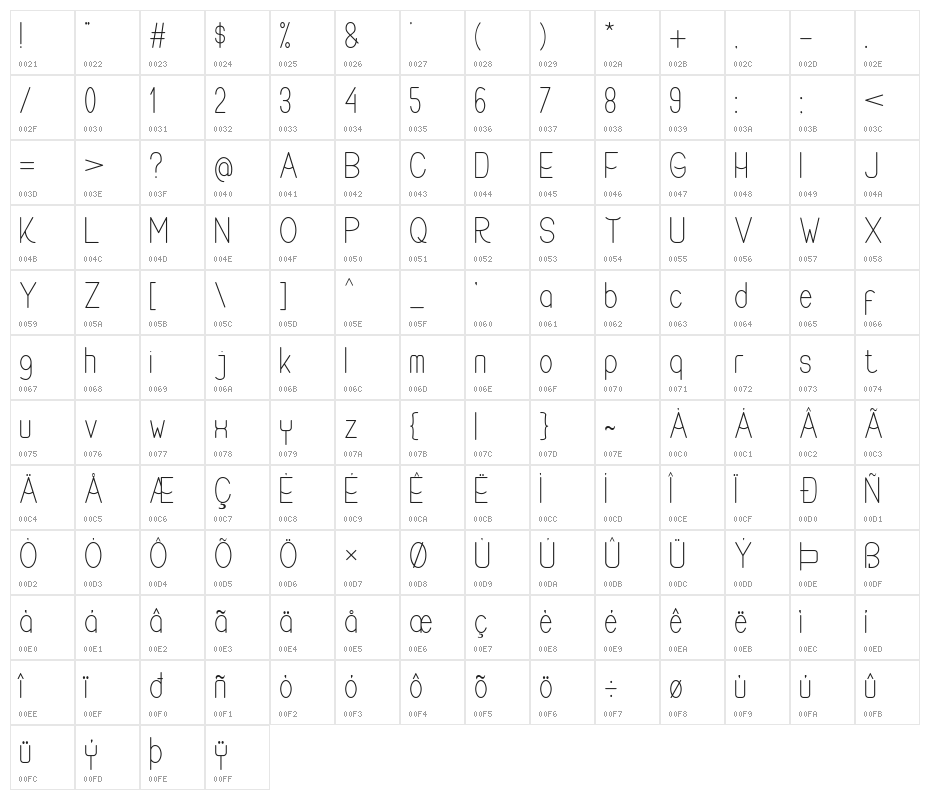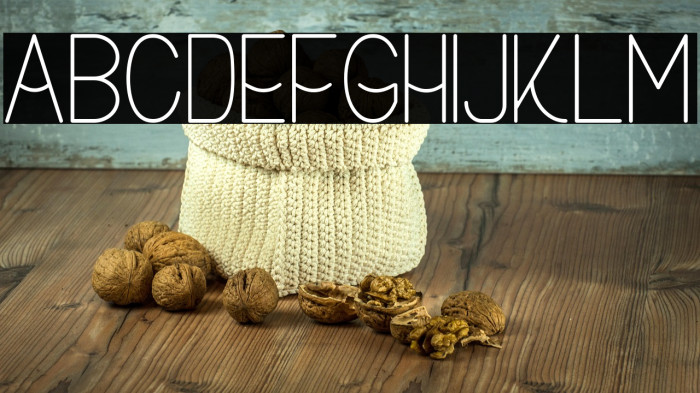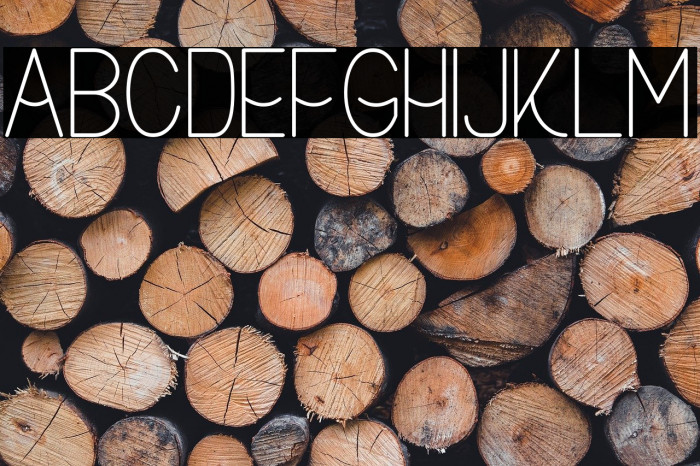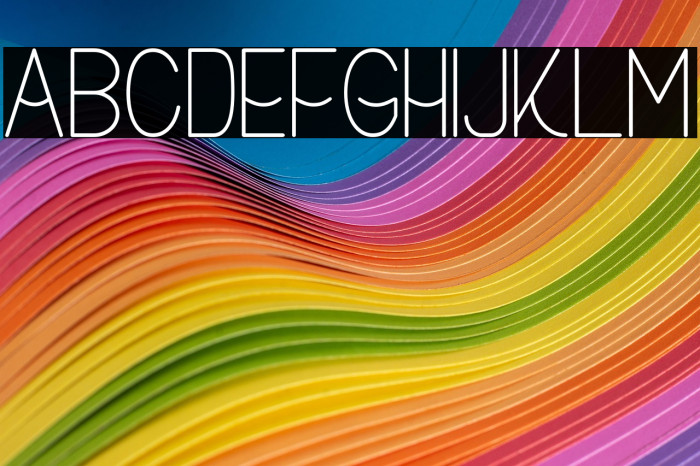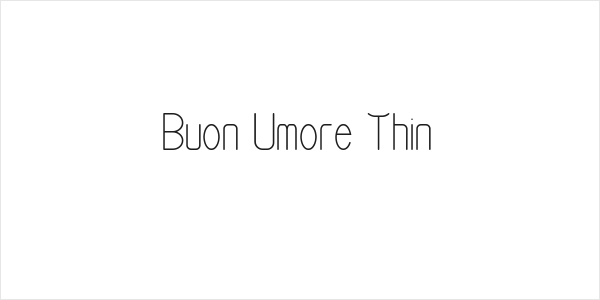
Buon Umore Thin Font
Buon Umore Thin Description
This font features a clean and modern design with a thin, elegant stroke. The characters are uniformly structured, providing a sense of balance and harmony. The uppercase and lowercase letters maintain a consistent height and width, contributing to a cohesive appearance. The numerals are distinct and easy to read, while the special characters are well-integrated, maintaining the overall aesthetic. The font's thin lines and rounded edges give it a contemporary and sophisticated feel, making it suitable for a variety of design applications.
| Proposed Projects | Ideal for minimalist branding, modern web design, elegant invitations, and sleek product packaging. |